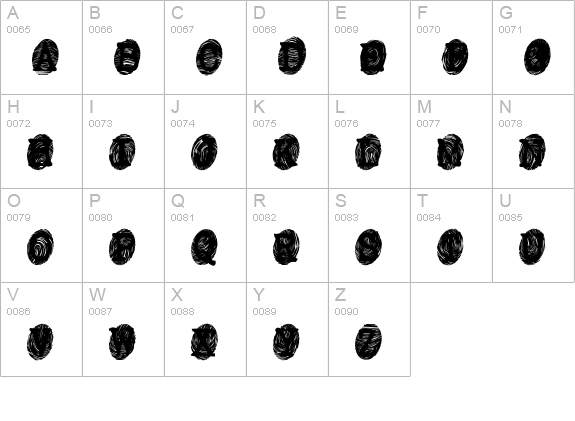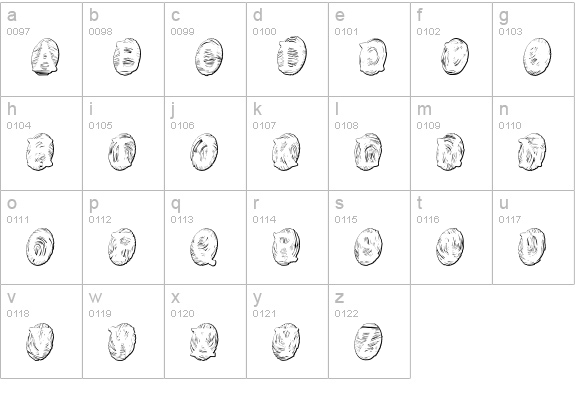
Powderfinger Ghost Font Details
Introducing Powderfinger Ghost font, a captivating and haunting typeface that will add a touch of mystery and elegance to your designs. This font features delicate and ethereal letterforms that seem to float on the page like ghostly apparitions. With its unique and enchanting style, Powderfinger Ghost is perfect for projects that require a touch of otherworldly beauty. The best part? Powderfinger Ghost font is completely free to download at FontsMarket.com. That's right, you can enhance your designs with this stunning font without spending a dime. Whether you're working on a project that needs a touch of the supernatural or simply want to add a touch of elegance to your designs, Powderfinger Ghost font is the perfect choice. Download it today and let your creativity soar.